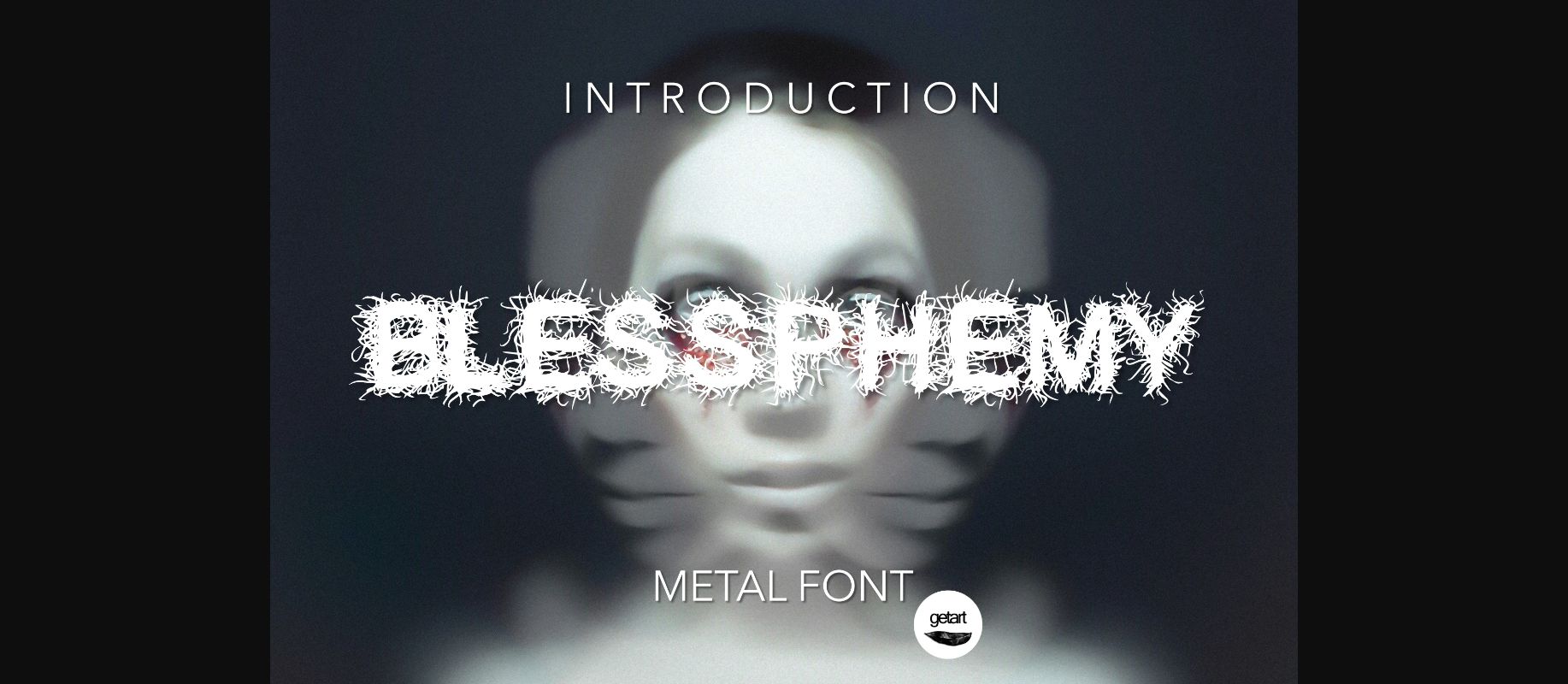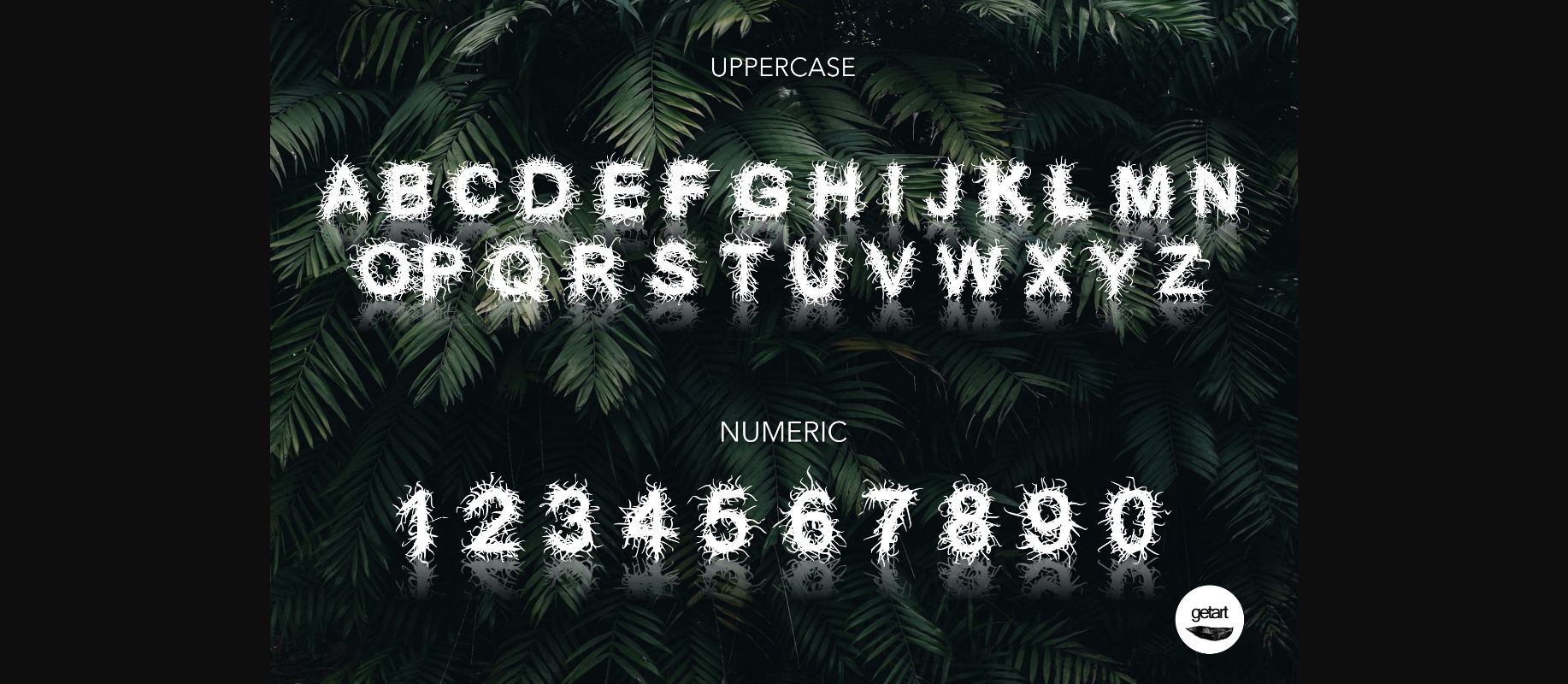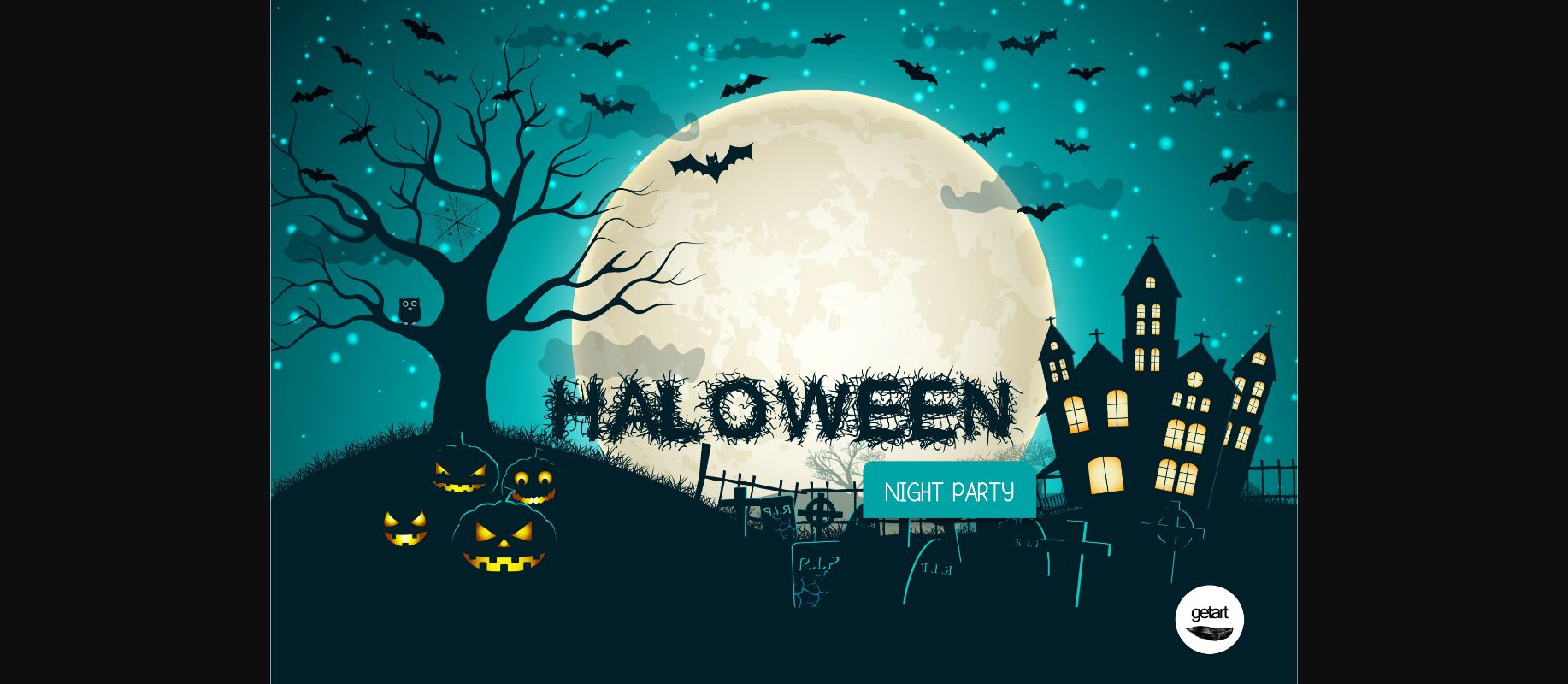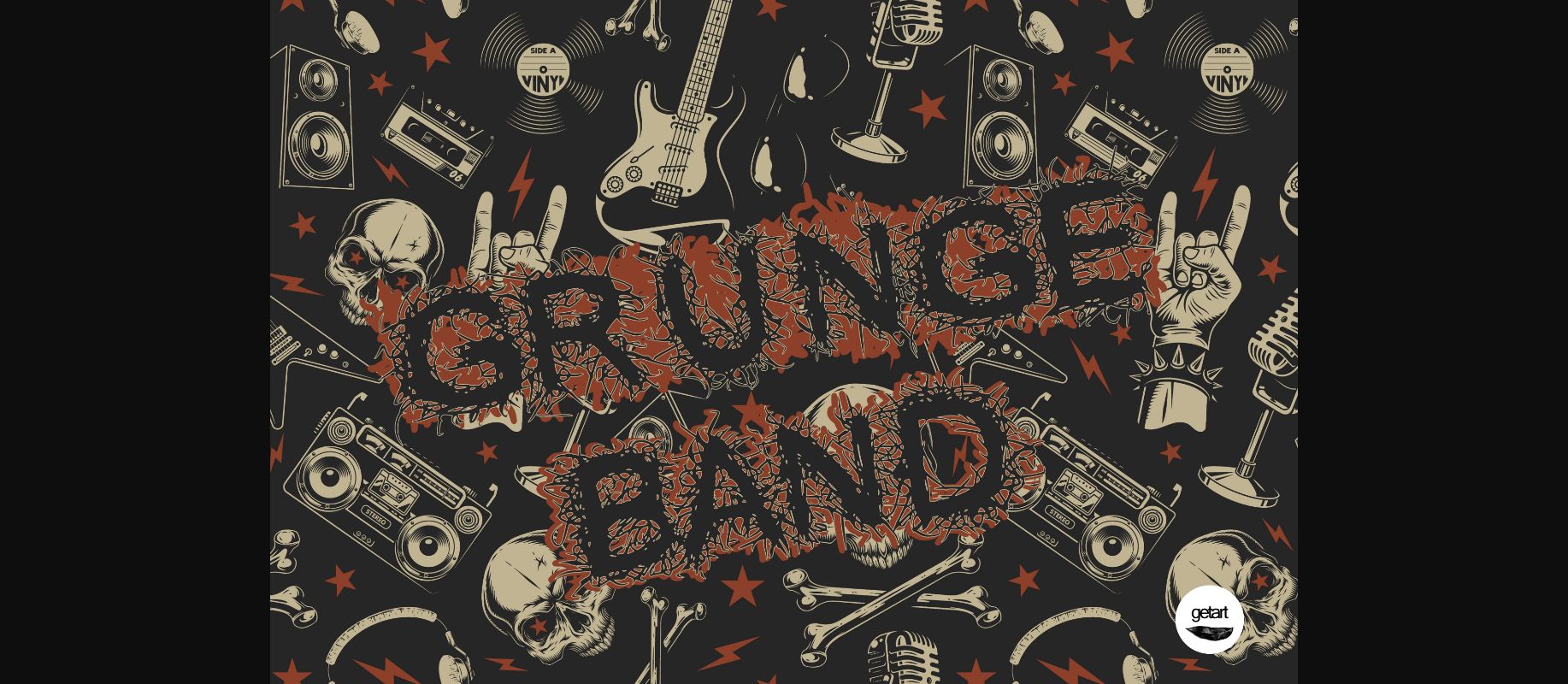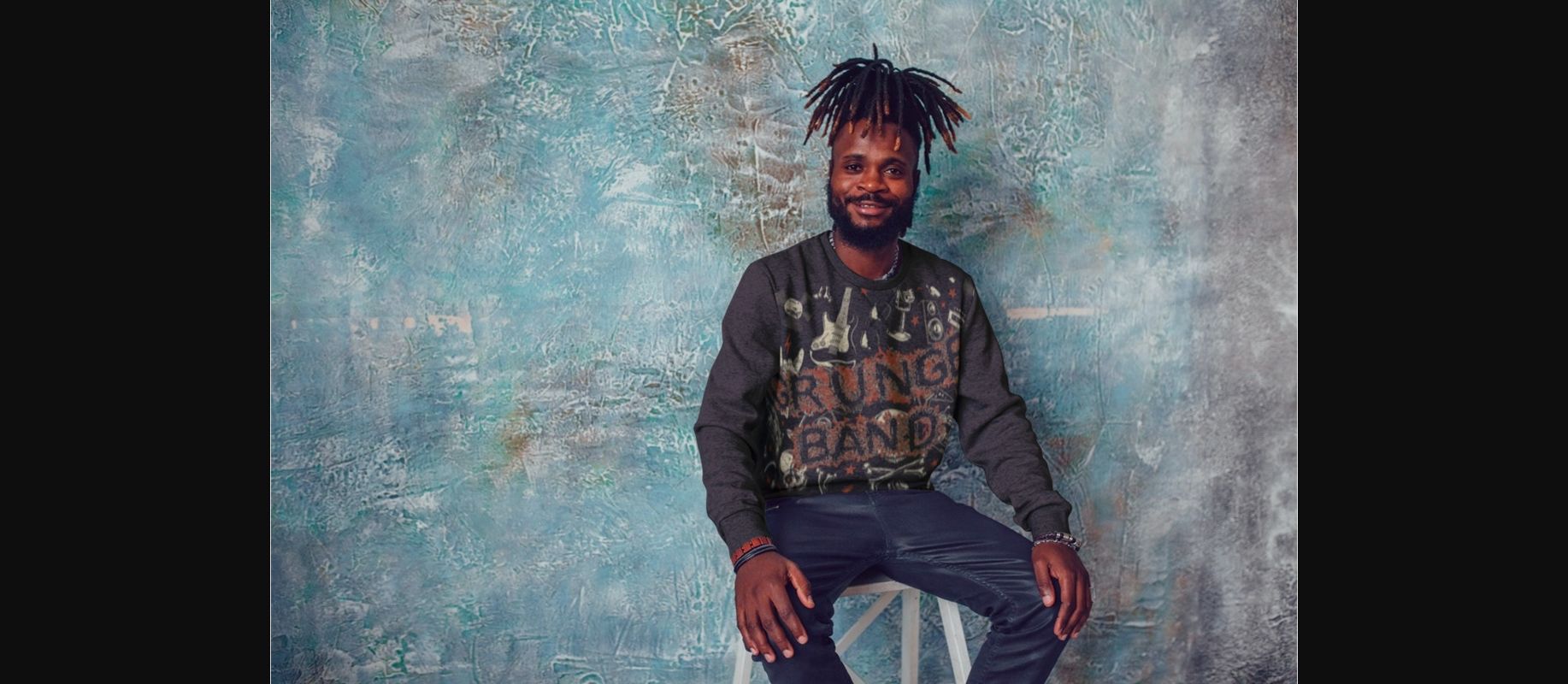
About Blessphemy Font
Blessphemy is a dramatic and uniquely designed decorative font. Expertly designed to make your creation look out of this world, this font will look gorgeous on a variety of ideas.